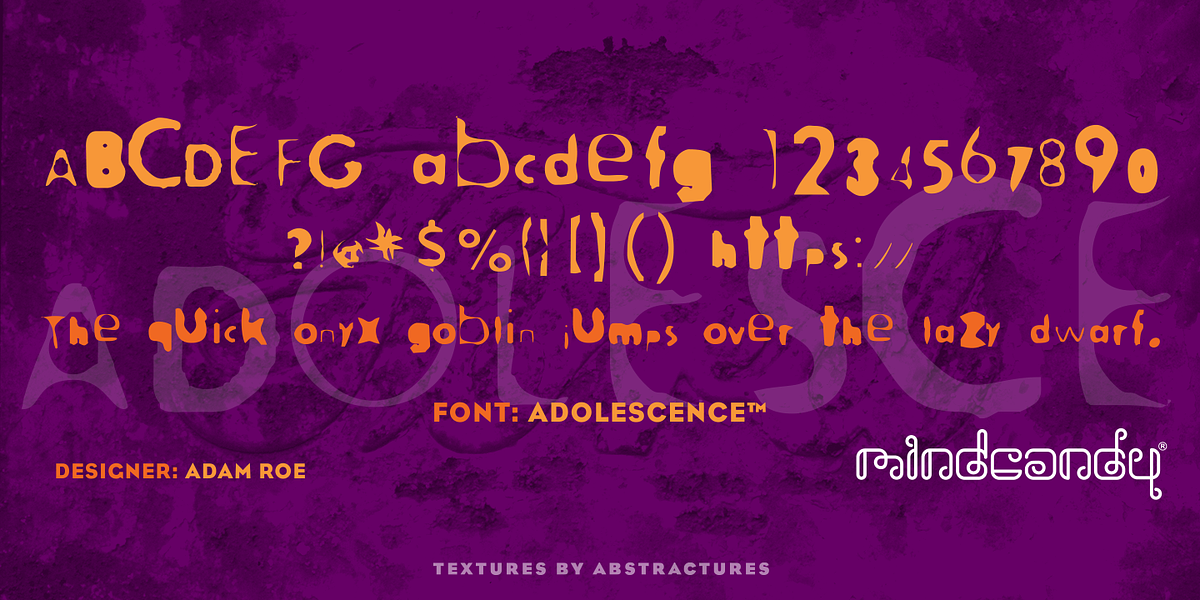
Adolescence™
Adolescence is a grunge-style display font designed by Adam Roe in 1994. It's characterized by its rough and uneven appearance with thick and thin strokes of varying sizes that extend above and below the baseline. The font evokes a sense of youthful rebellion and would be suitable for headlines, branding, and posters.